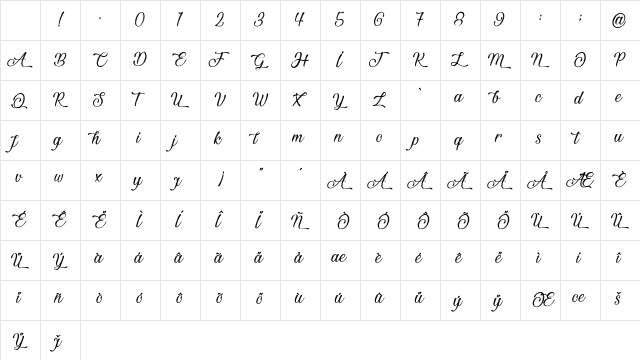
Complete Beautiful and Openhearted Regular glyph index. Displaying only characters natively supported by Beautiful and Openhearted Regular font.
Beautiful and Openhearted is a composed and adaptable typeface that performs quietly and consistently across a wide range of design contexts.